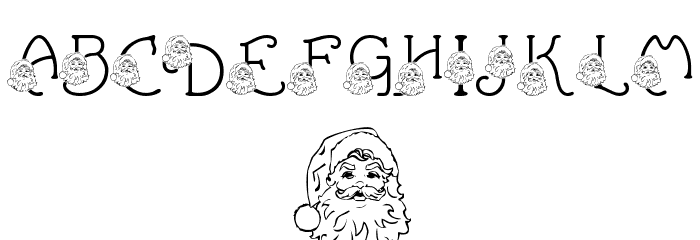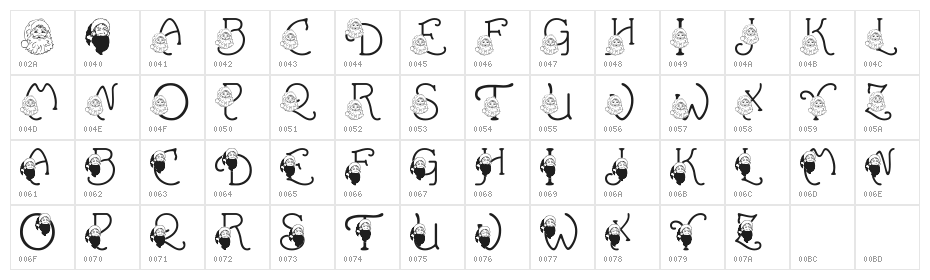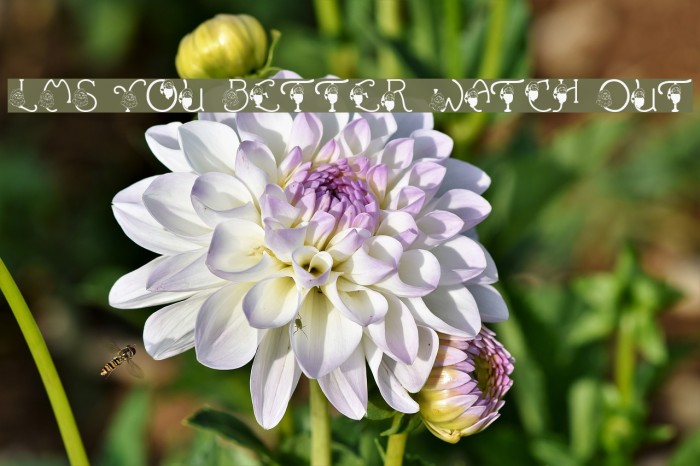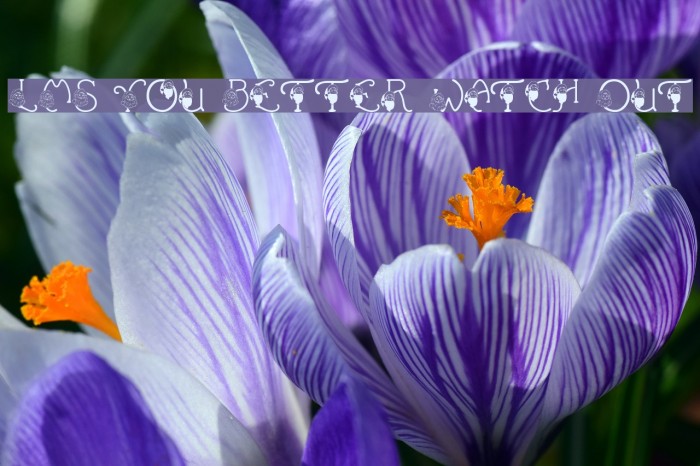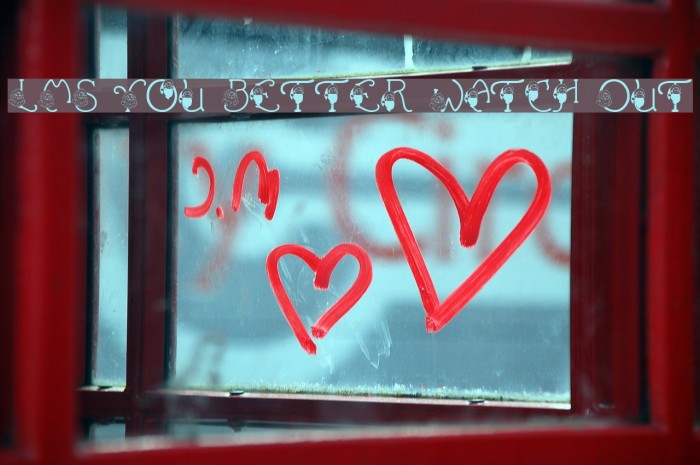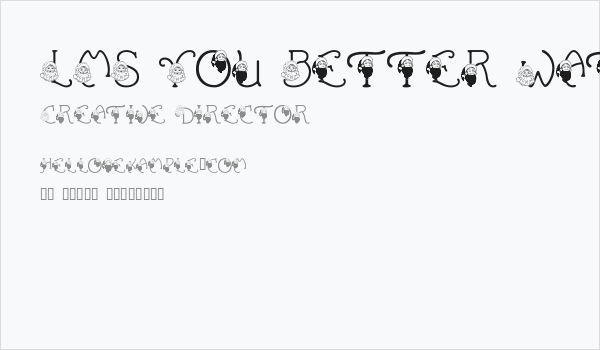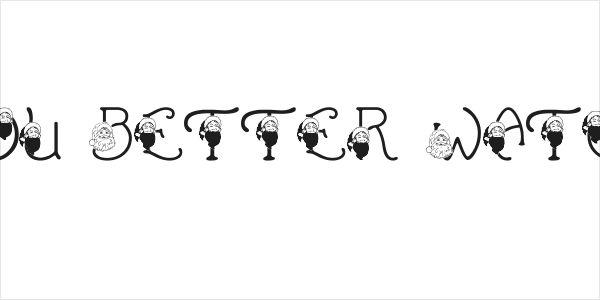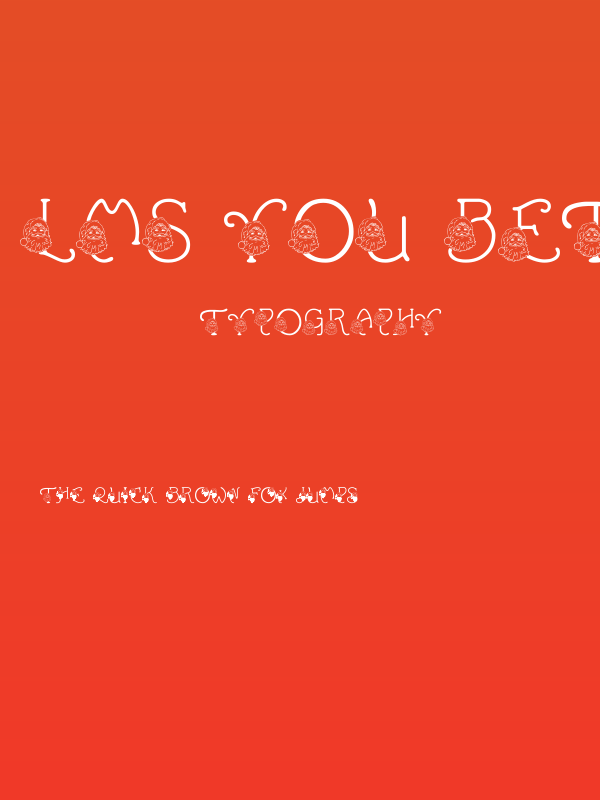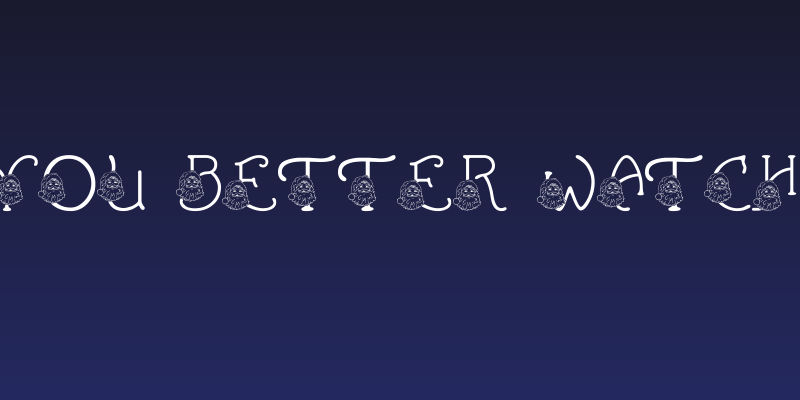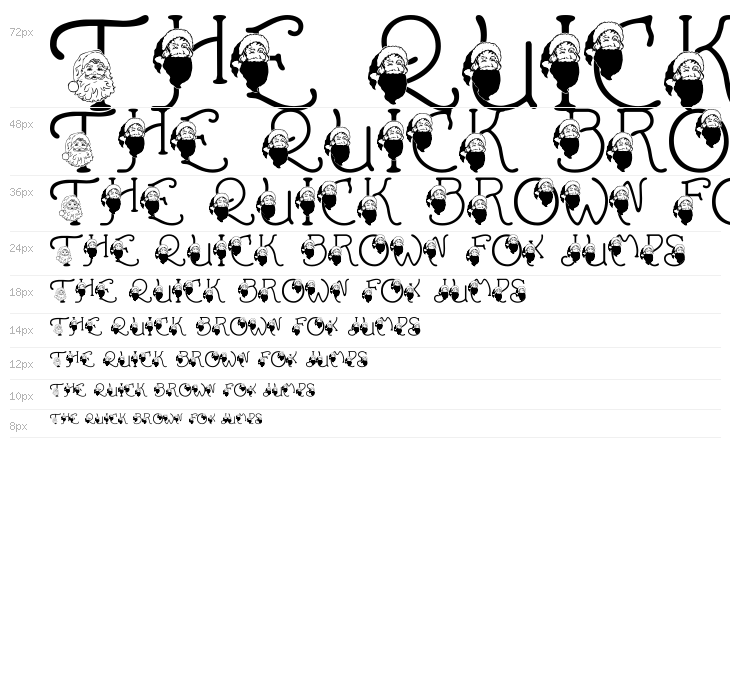
LMS You Better Watch Out Font
LMS You Better Watch Out Description
This whimsical and festive font features playful, decorative elements that incorporate Santa Claus imagery into each letter. The characters are adorned with Santa hats and beards, creating a joyful and holiday-themed aesthetic. The design is highly decorative, making it ideal for seasonal projects where a cheerful and lighthearted tone is desired. The font maintains a consistent style throughout, with each letter uniquely embellished to enhance its festive appeal.
| Proposed Projects | Ideal for holiday cards, festive banners, Christmas-themed posters, and seasonal marketing materials. |